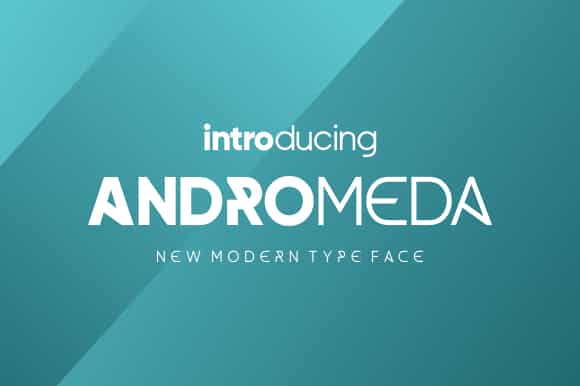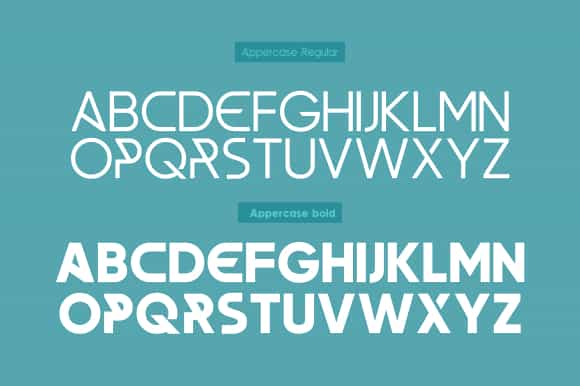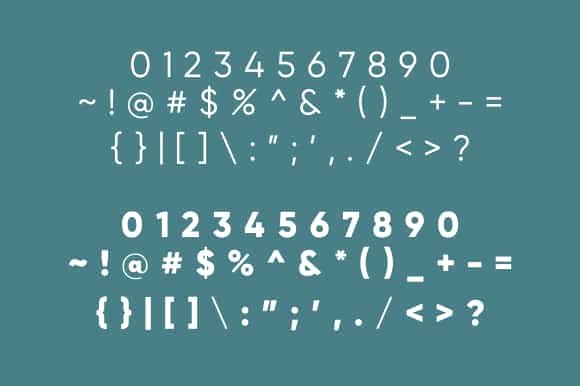
Andromeda font is a refined and space age font that comes with two styles, regular and bold. This stylish font family of sans serif font can be used for any kind of communication, thus suitable for emblem badges, insignia packaging and headlines, posters and t-shirt, and greeting cards and wedding invitations.